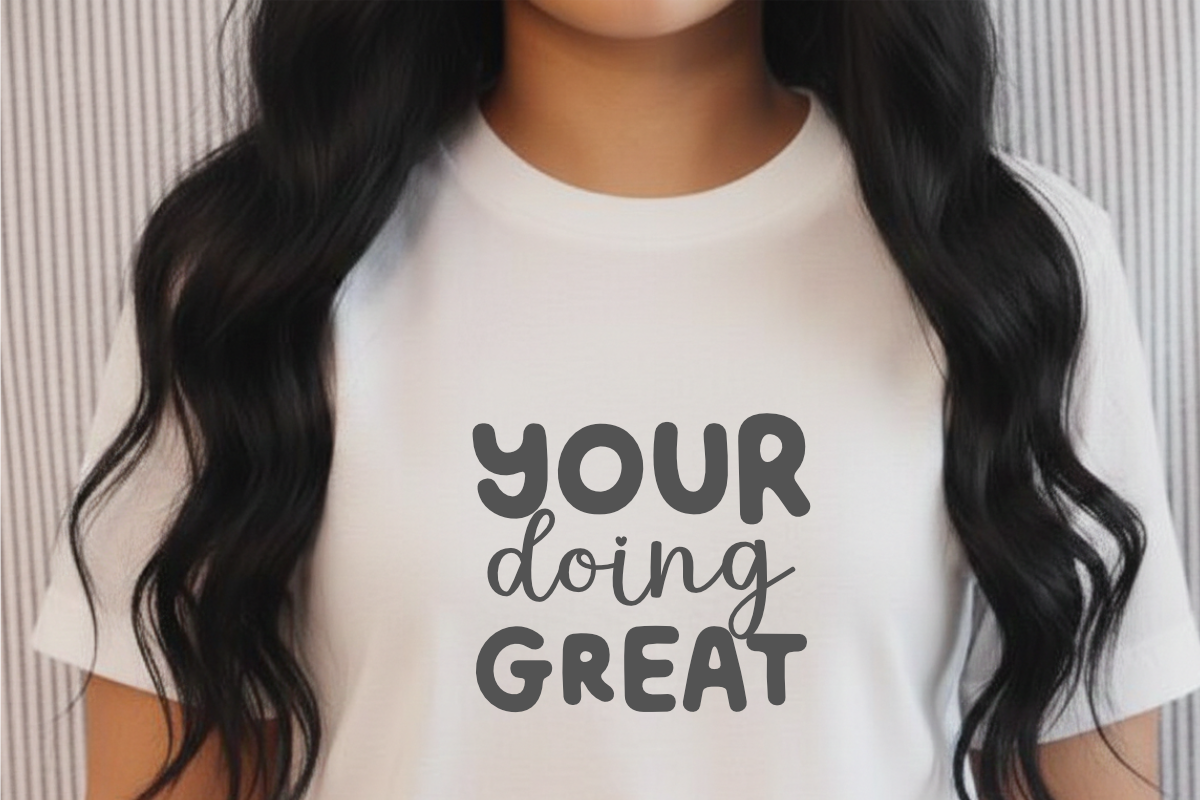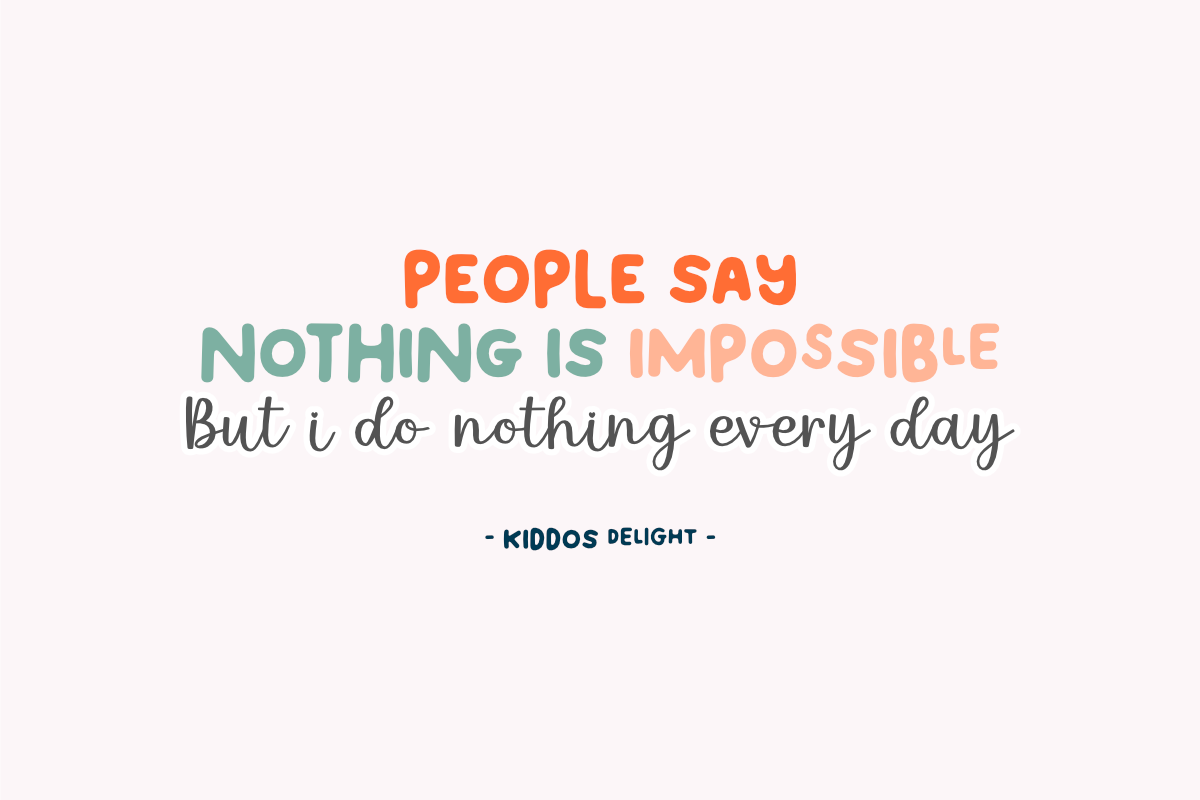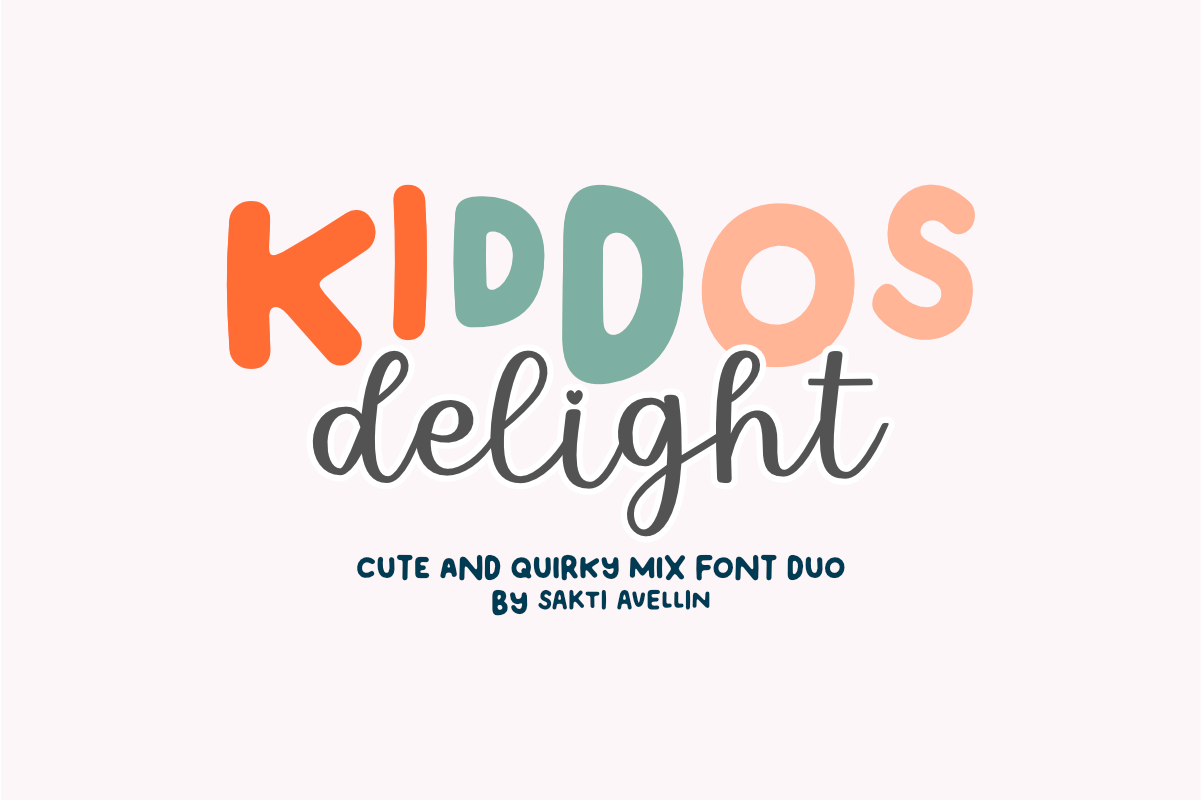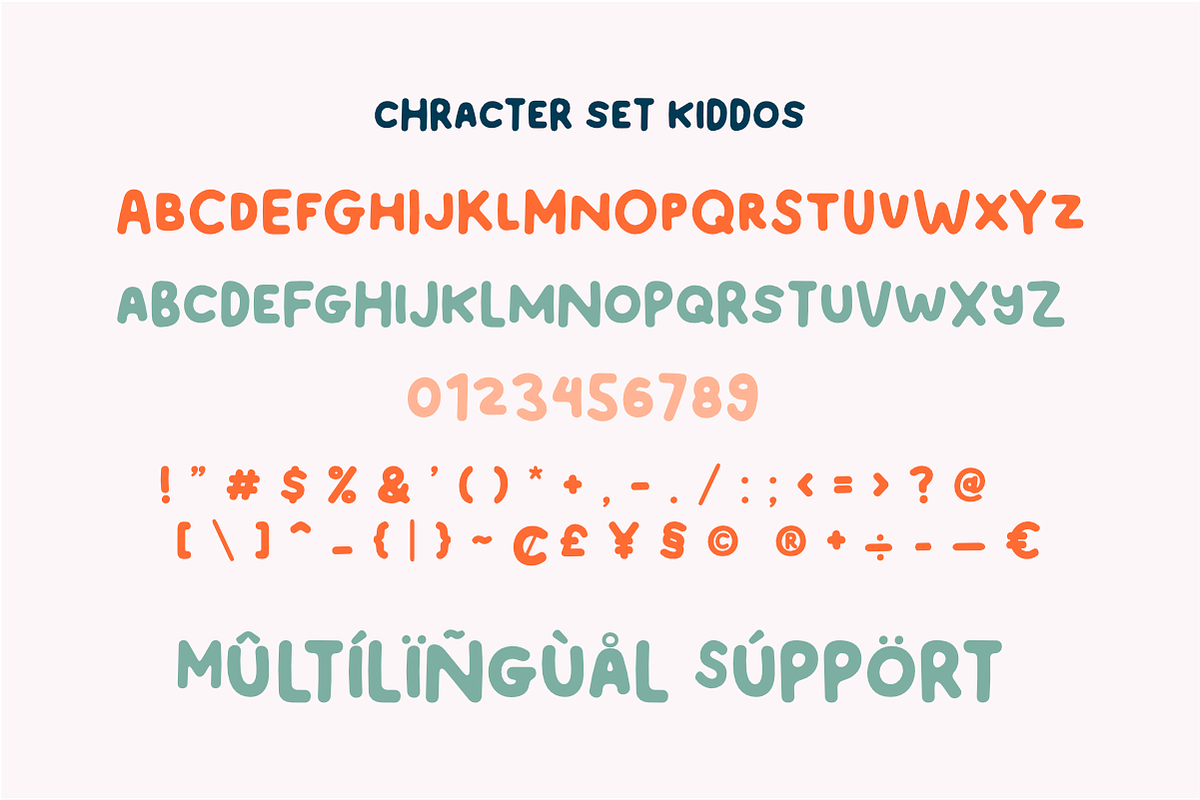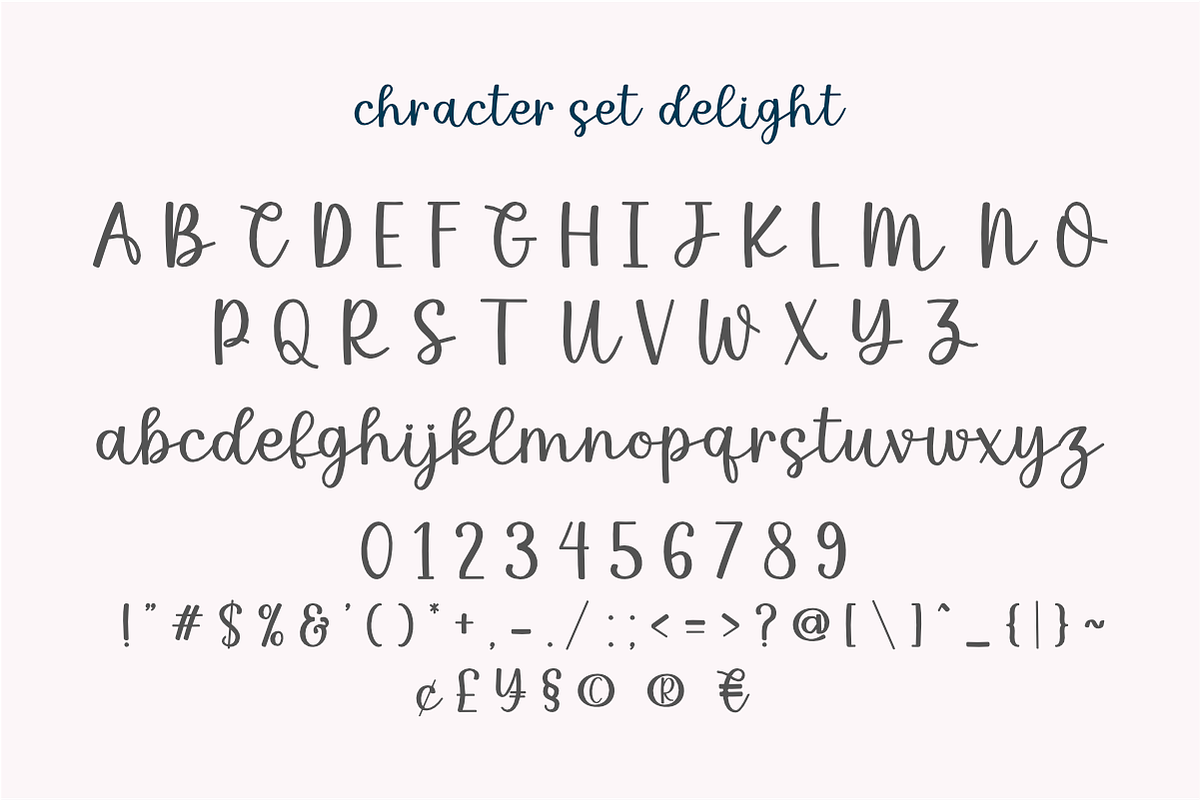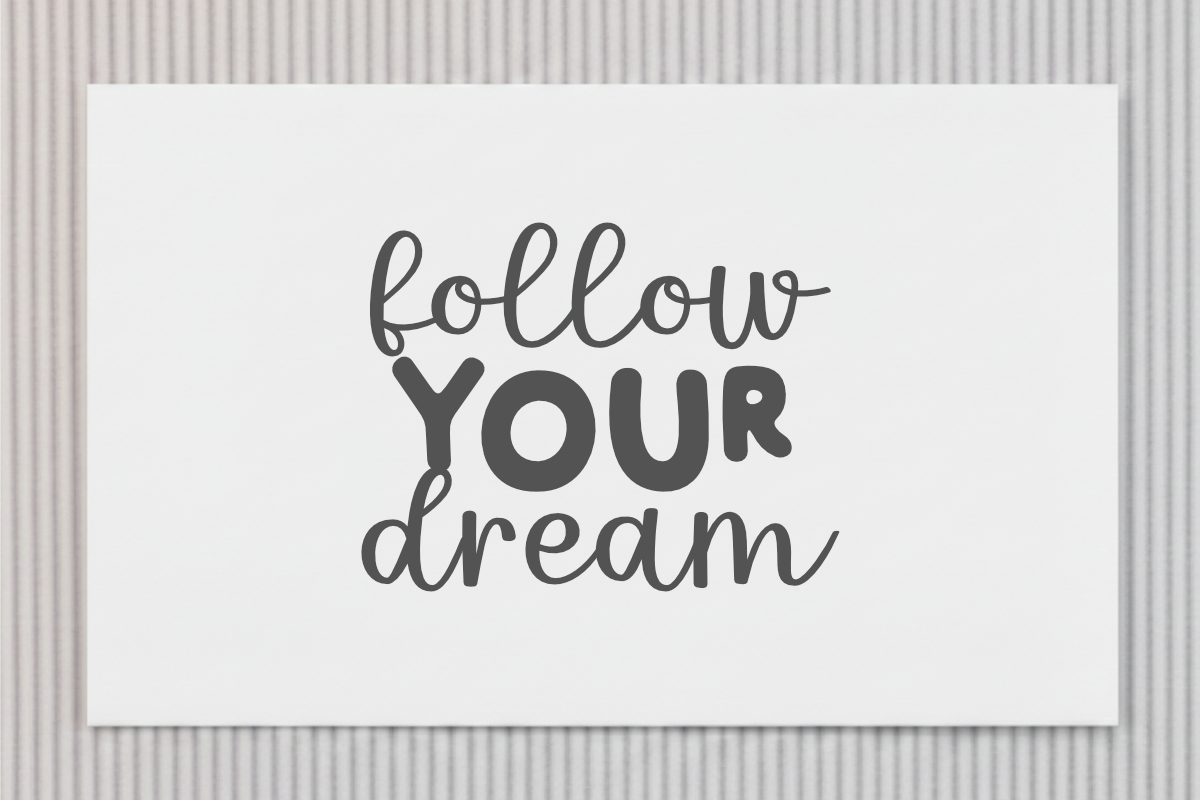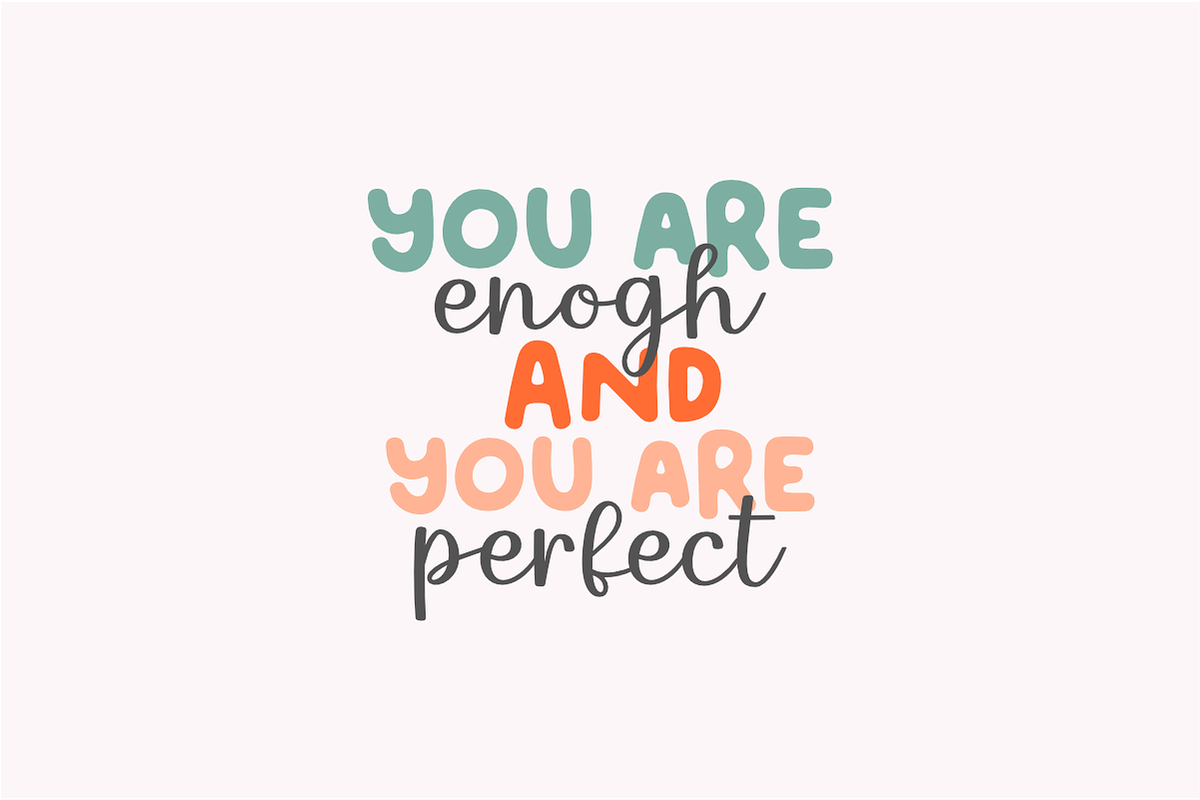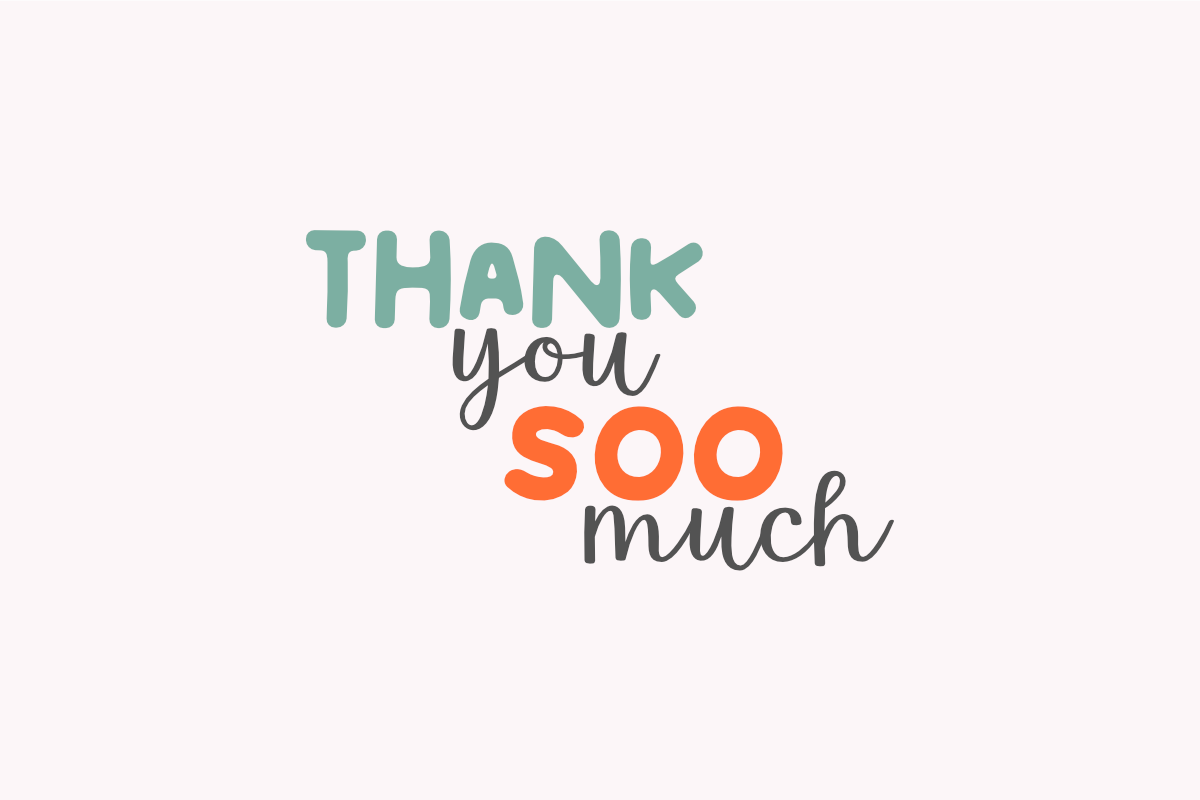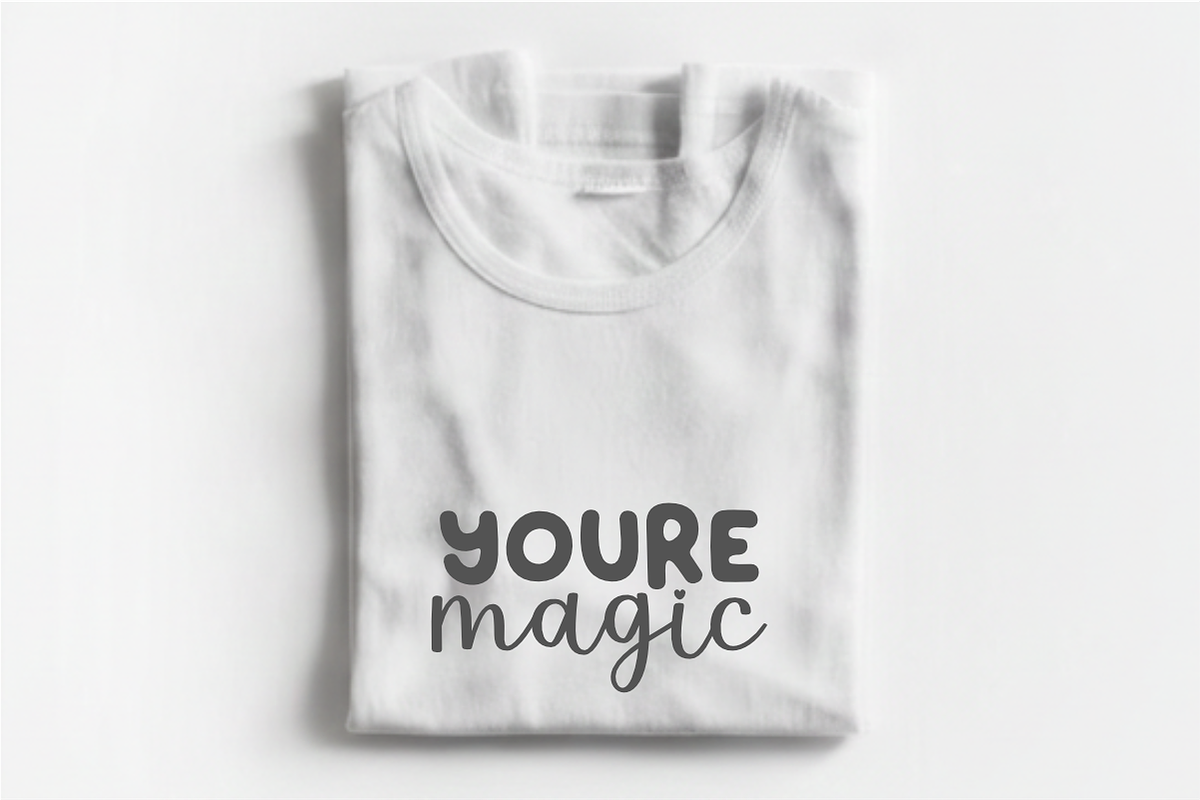
Kiddos Delight - Cute Font Duo
Kiddos Delight is a charming and cute and quirky mix font duo designed to bring a playful and energetic vibe to your creative projects. This versatile typeface pairing features a bold, rounded display style for a "chunky" look and a sweet, thin script with a heart detail for a personal touch, making it an ideal choice for kids' branding, nursery decor, birthday invitations, and cheerful social media graphics. Its handcrafted aesthetic and friendly letterforms ensure your designs feel warm and approachable. Whether you are creating stickers, school apparel, or whimsical greeting cards, Kiddos Delight offers the perfect balance of fun and creativity for any modern design.